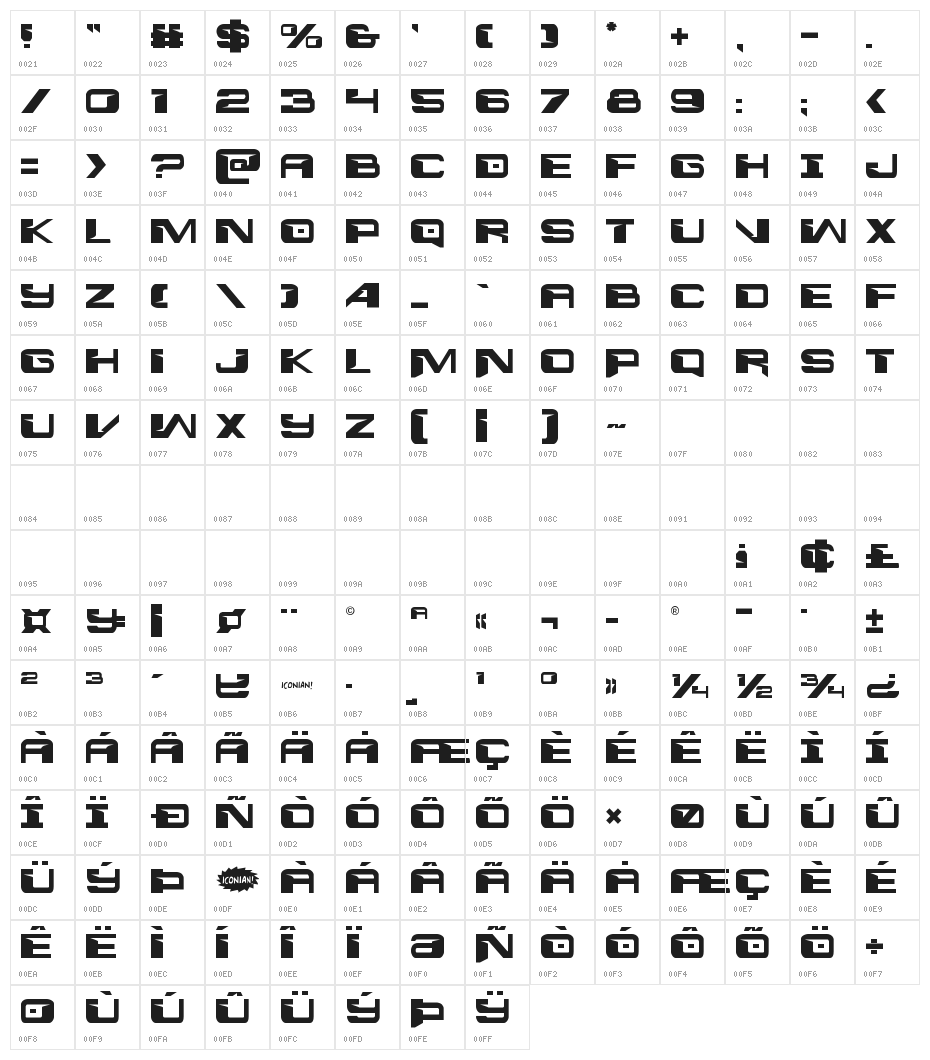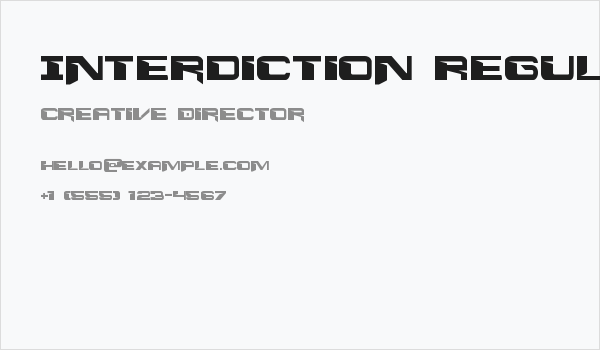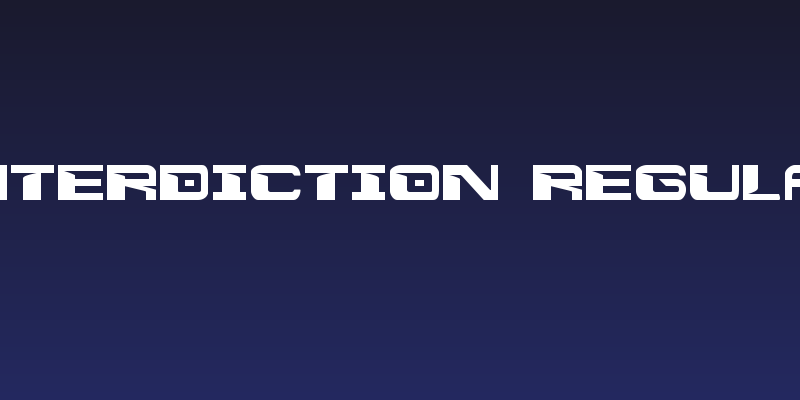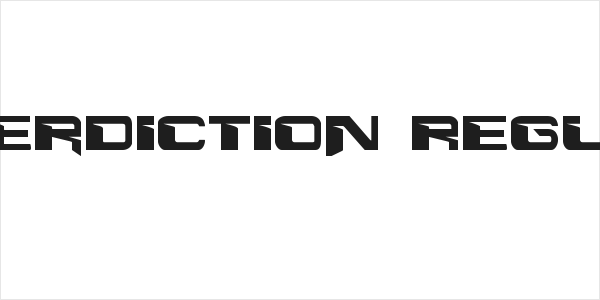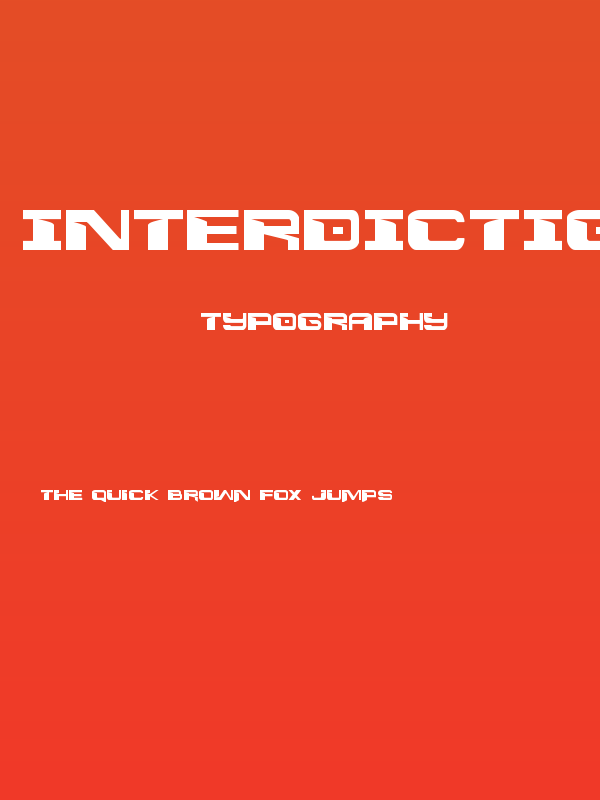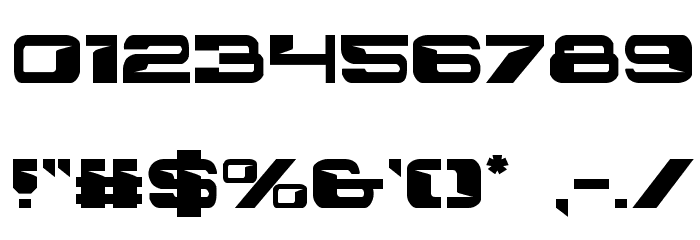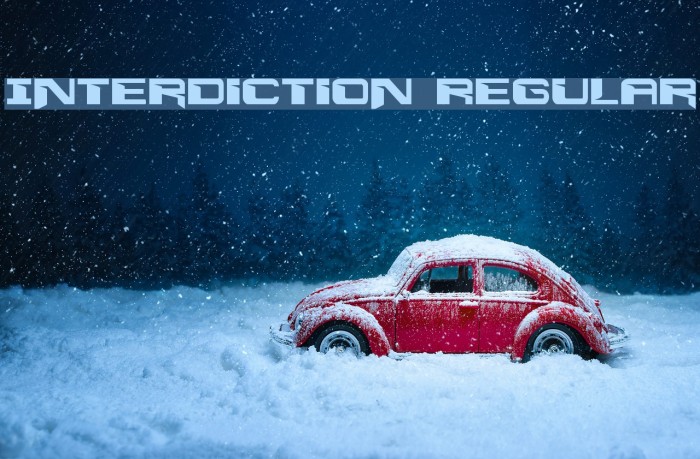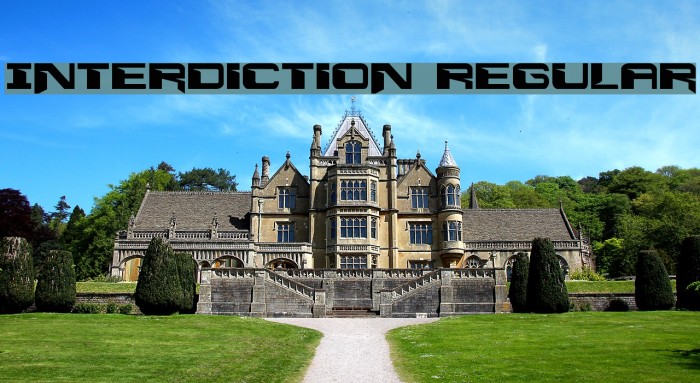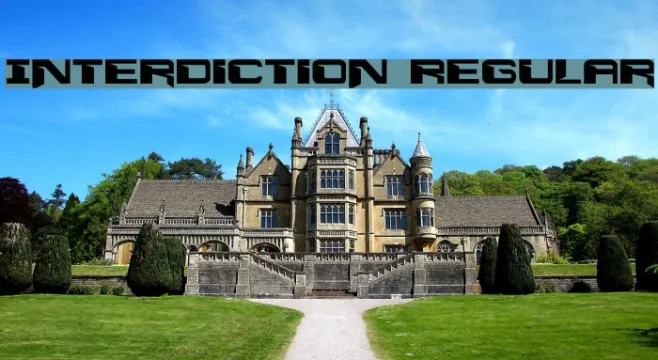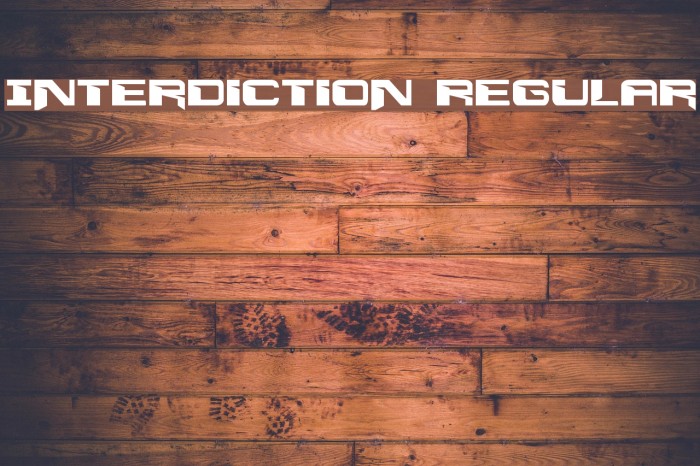
Interdiction Regular Font
Interdiction Regular Description
This font features a bold, futuristic design with geometric elements and sharp angles. The characters are constructed with a strong presence, making them ideal for attention-grabbing displays. The uppercase and lowercase letters share a consistent style, with a unique approach to character shapes that emphasizes a modern, tech-inspired aesthetic. The numbers and special characters maintain this theme, providing a cohesive look across all glyphs. The font's design is both striking and versatile, suitable for a variety of creative applications.
INTERDICTION-REGULAR UPPERCASE
INTERDICTION-REGULAR LOWERCASE
INTERDICTION-REGULAR OTHER CHARS
| Proposed Projects | Ideal for sci-fi themed projects, technology branding, video game titles, and modern posters. |